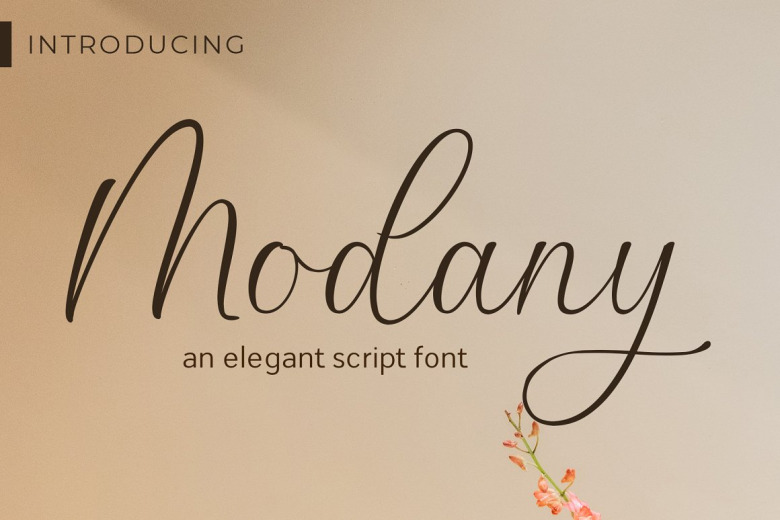
Modany Font
Modany Handwritten Font is script collection font with natural movement make looks elegant, classy and beauty for your project. Refira Asri is perfect for branding projects, logo, wedding designs, social media posts, advertisements, product packaging, product designs, label, photography, watermark, invitation, stationery and any projects that need handwriting taste.
Modany Handwritten Script Font